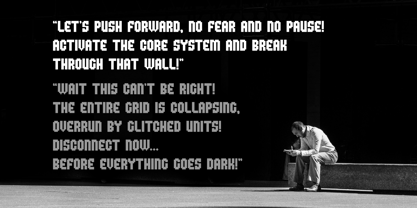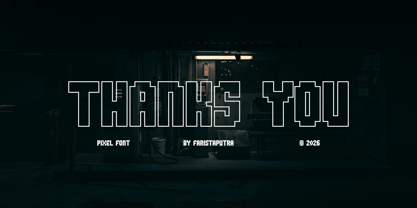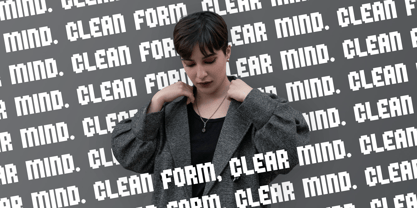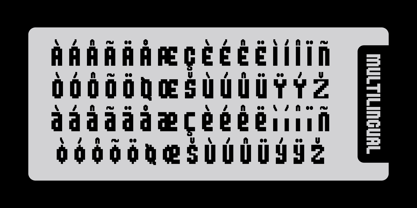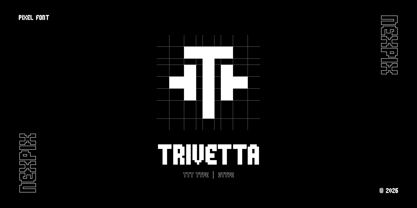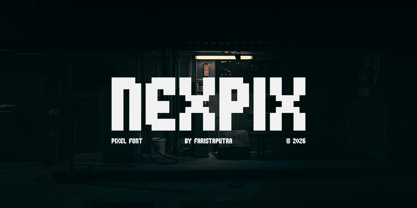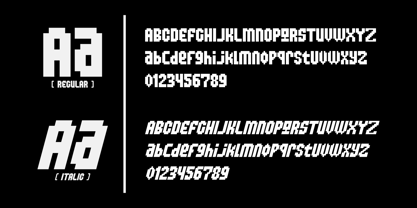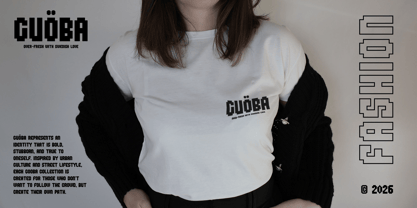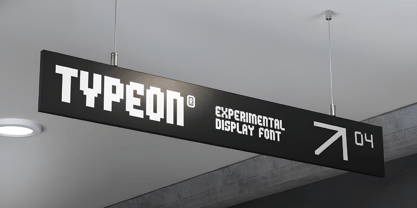
FA Nexpix
by Faristaputra
The FA Nexpix Font Family was designed by Frederik Aristaputra and published by Faristaputra. FA Nexpix contains 2 styles and family package options. More about this family
NEXPX is a bold pixel display font inspired by retro gaming and futuristic digital aesthetics. Built with strong geometric shapes and a clean pixel grid, it delivers a powerful, modern look while maintaining classic pixel character. Perfect for headlines, logos, game titles, posters, UI elements, and cyber or sci-fi themed designs that require a striking visual presence.
Designers: Frederik Aristaputra
Foundry: Faristaputra